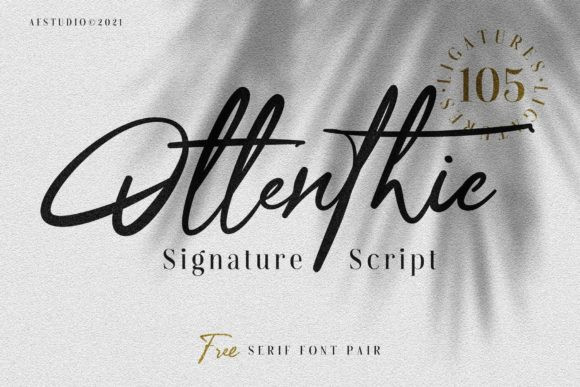
Ottenthic Font
Ottenthic is a fashionable and relaxed duo font (script and serif). It has a classy, elegant and modern look that can be used for logos, branding, invitations, stationery, wedding designs, social media posts, and much more!